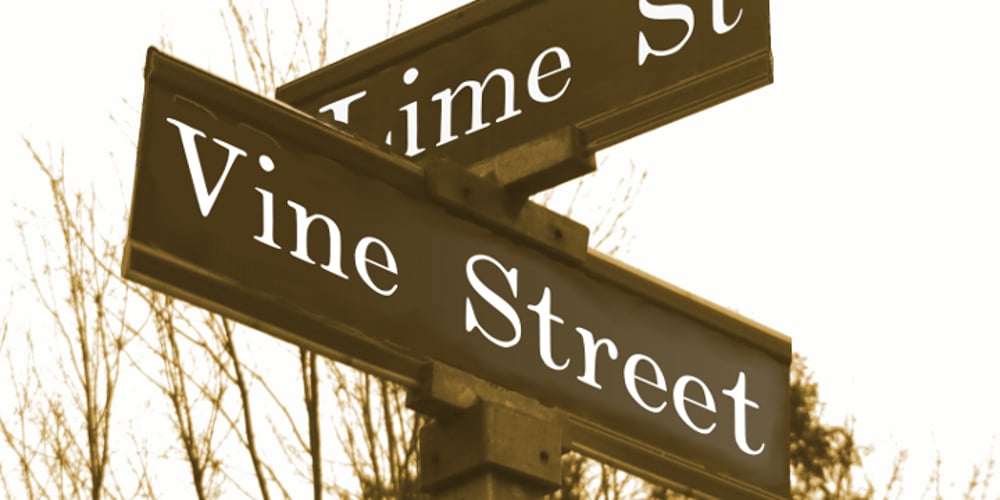
Vine Street
Vine Street font
Vine Street Font Family was designed by Shane Brandes and published by Proportional Lime. Vine Street contains 5 styles and family package options. VineStreet a place somehow familiar to everyone in the English speaking world. It might be just around the corner or the next town over. This font gives that aged feel of comfort and familiarity and the authority of tradition. The example for this font was derived from a ecclesiastical history published by the Caxton Press of the Sherman & Co. of Philadelphia and was originally developed prior to 1867. This font has over 1000 defined glyphs and small caps included.